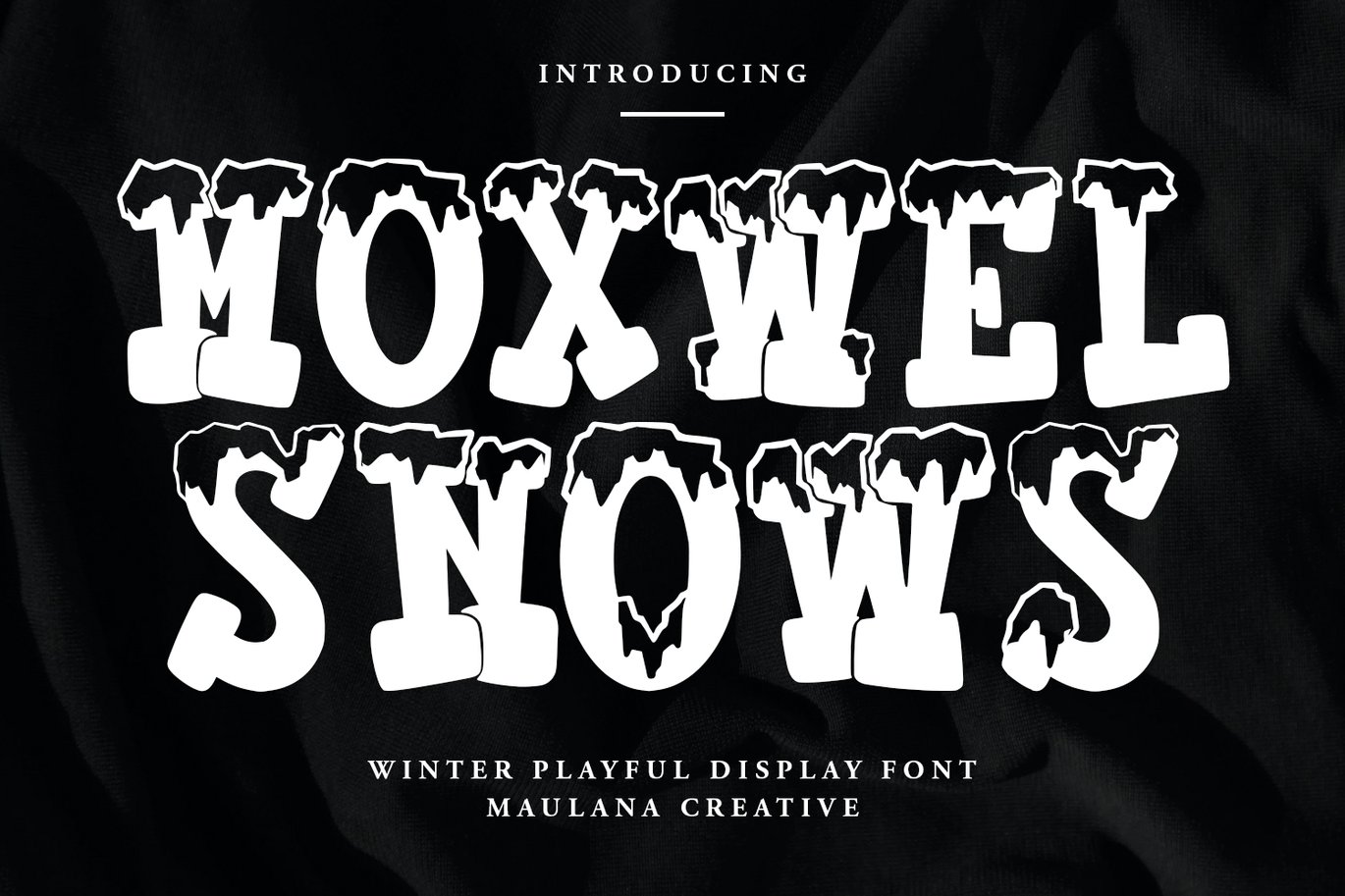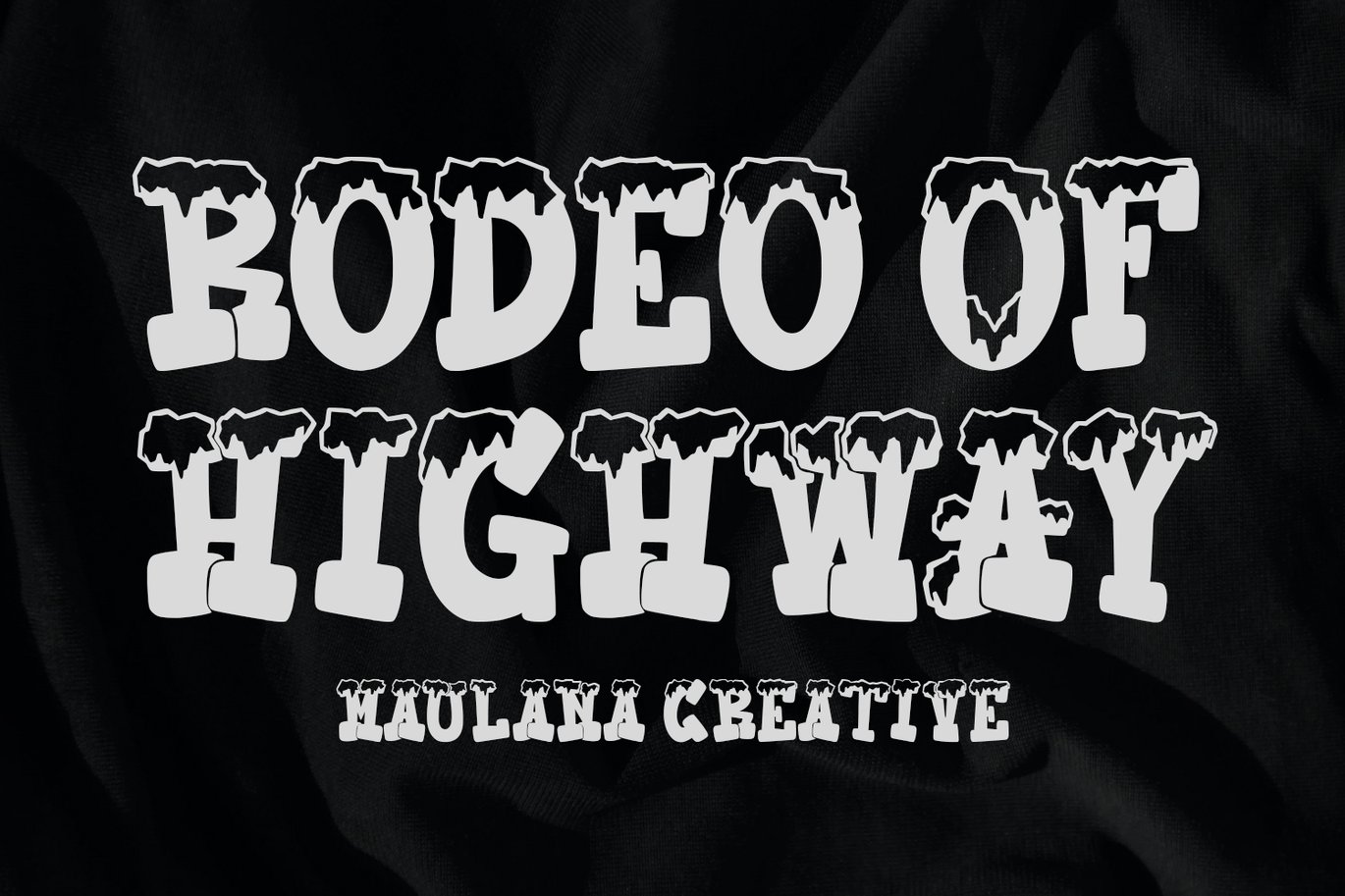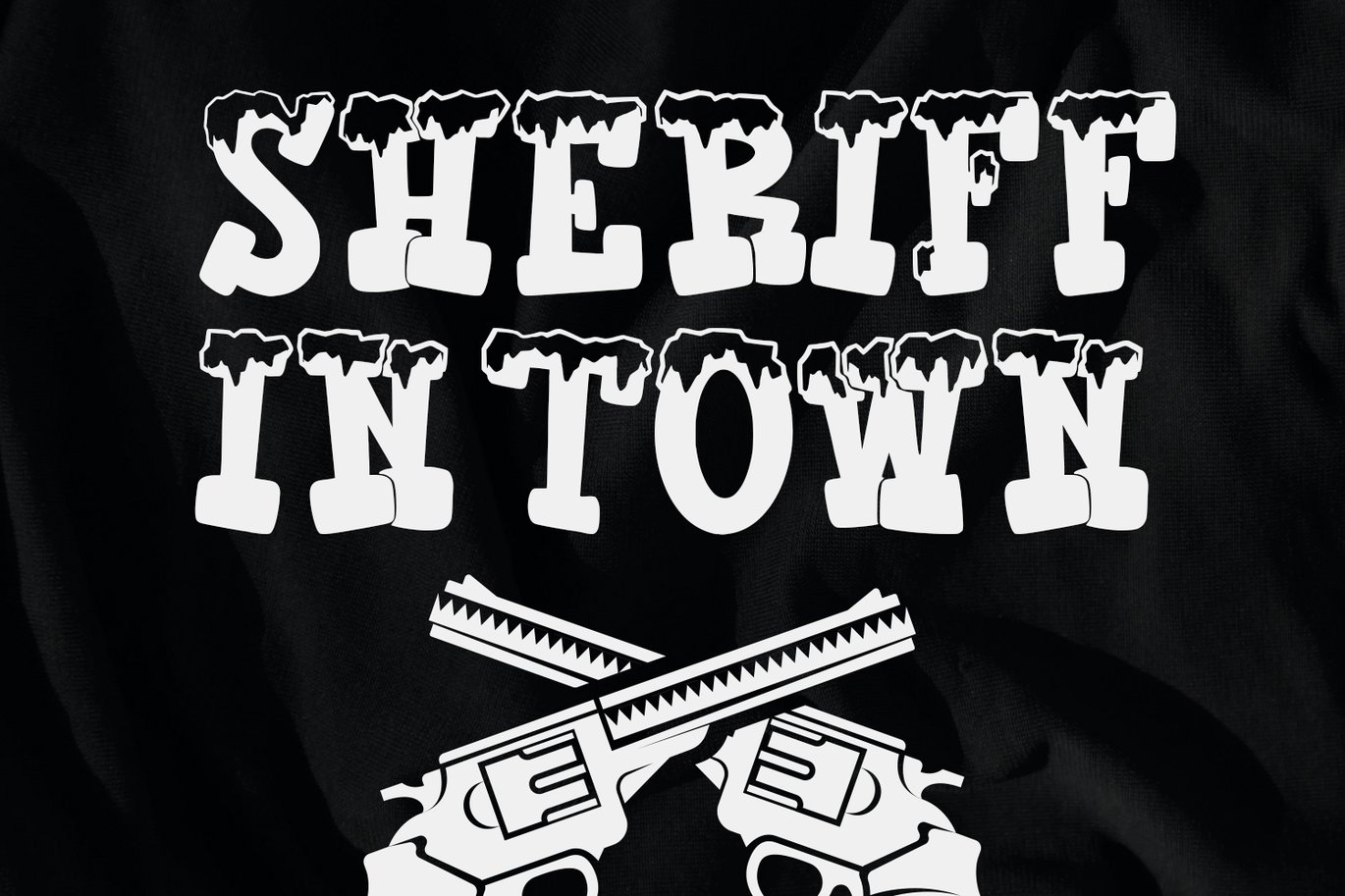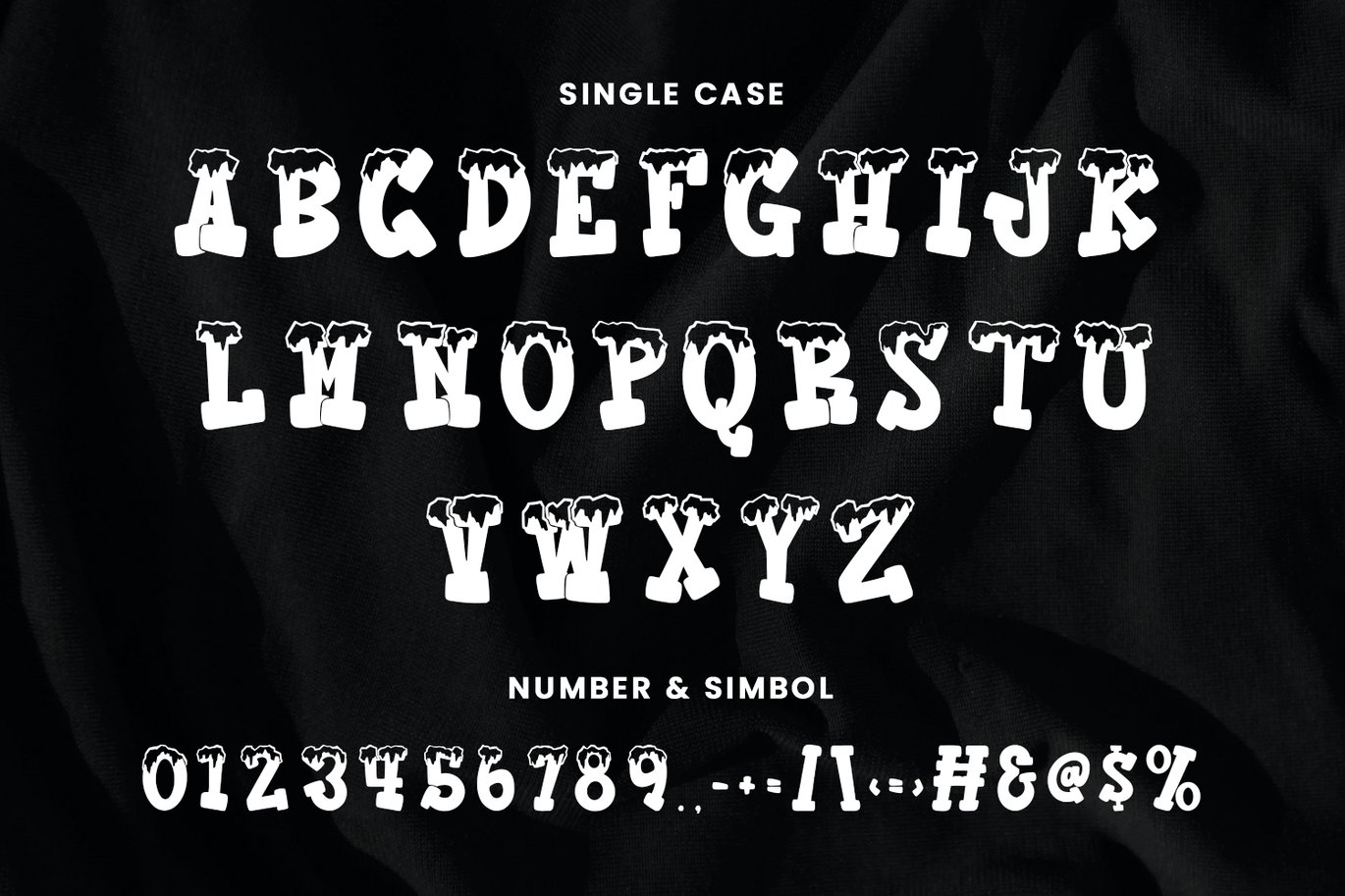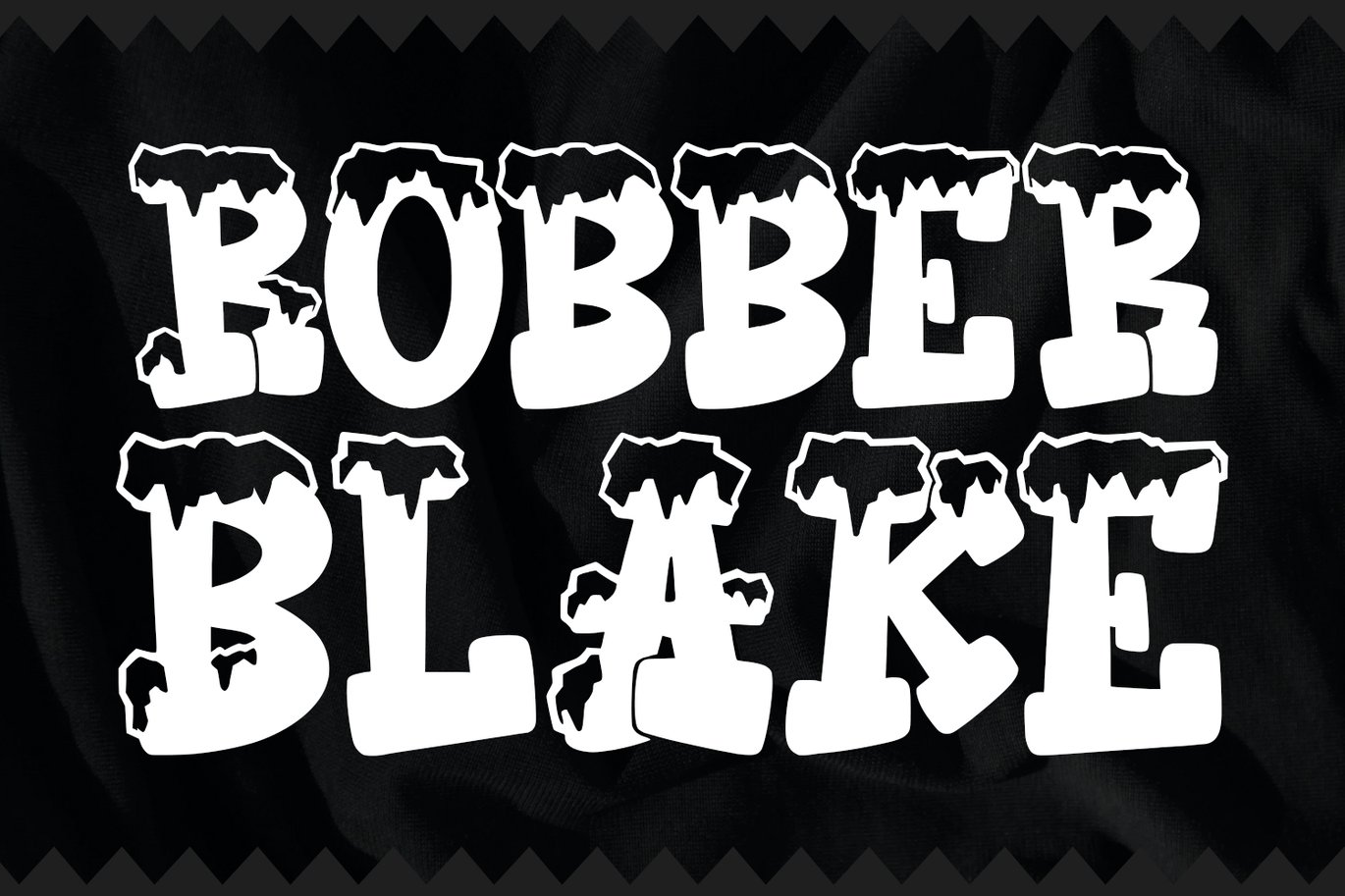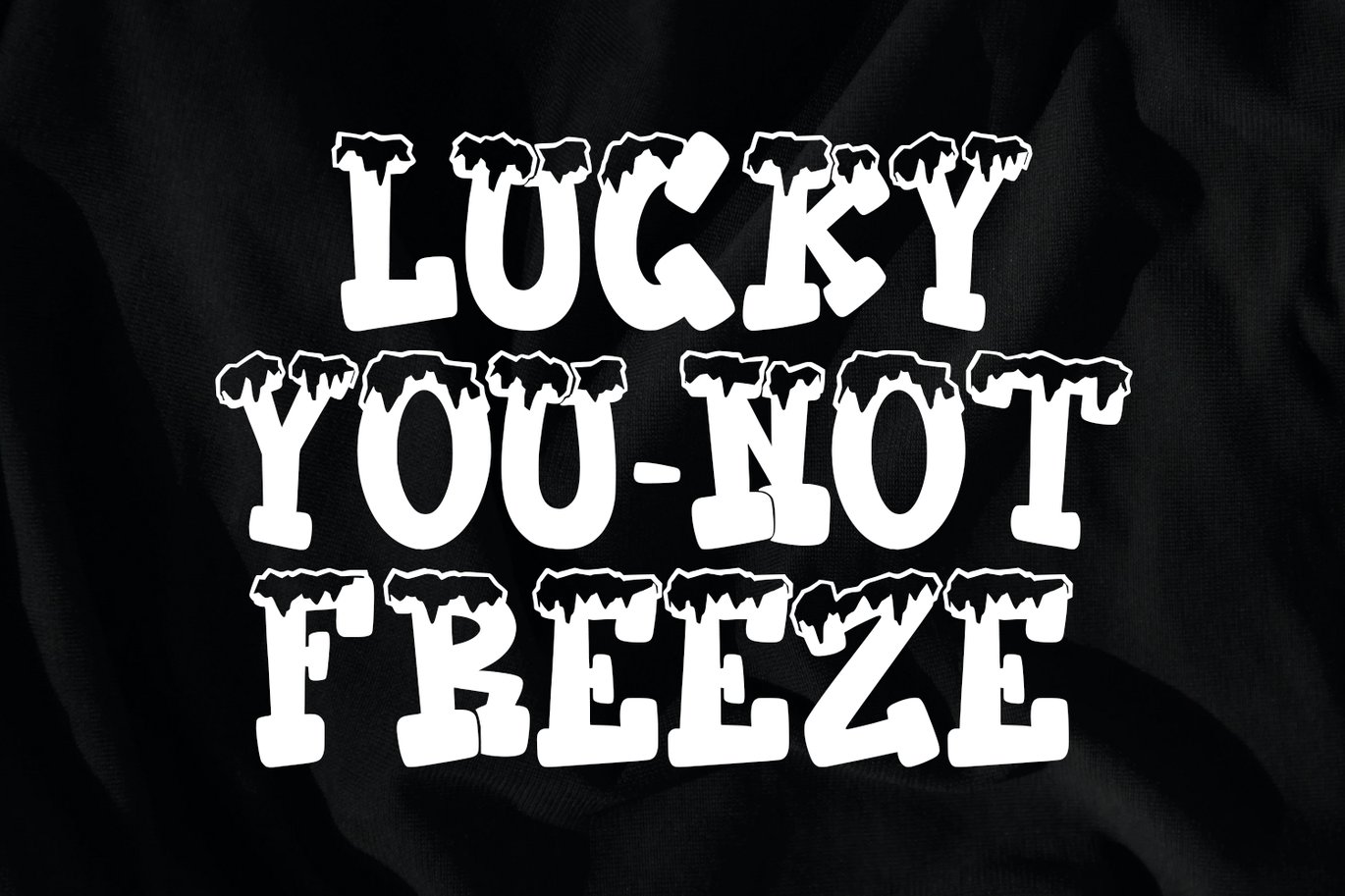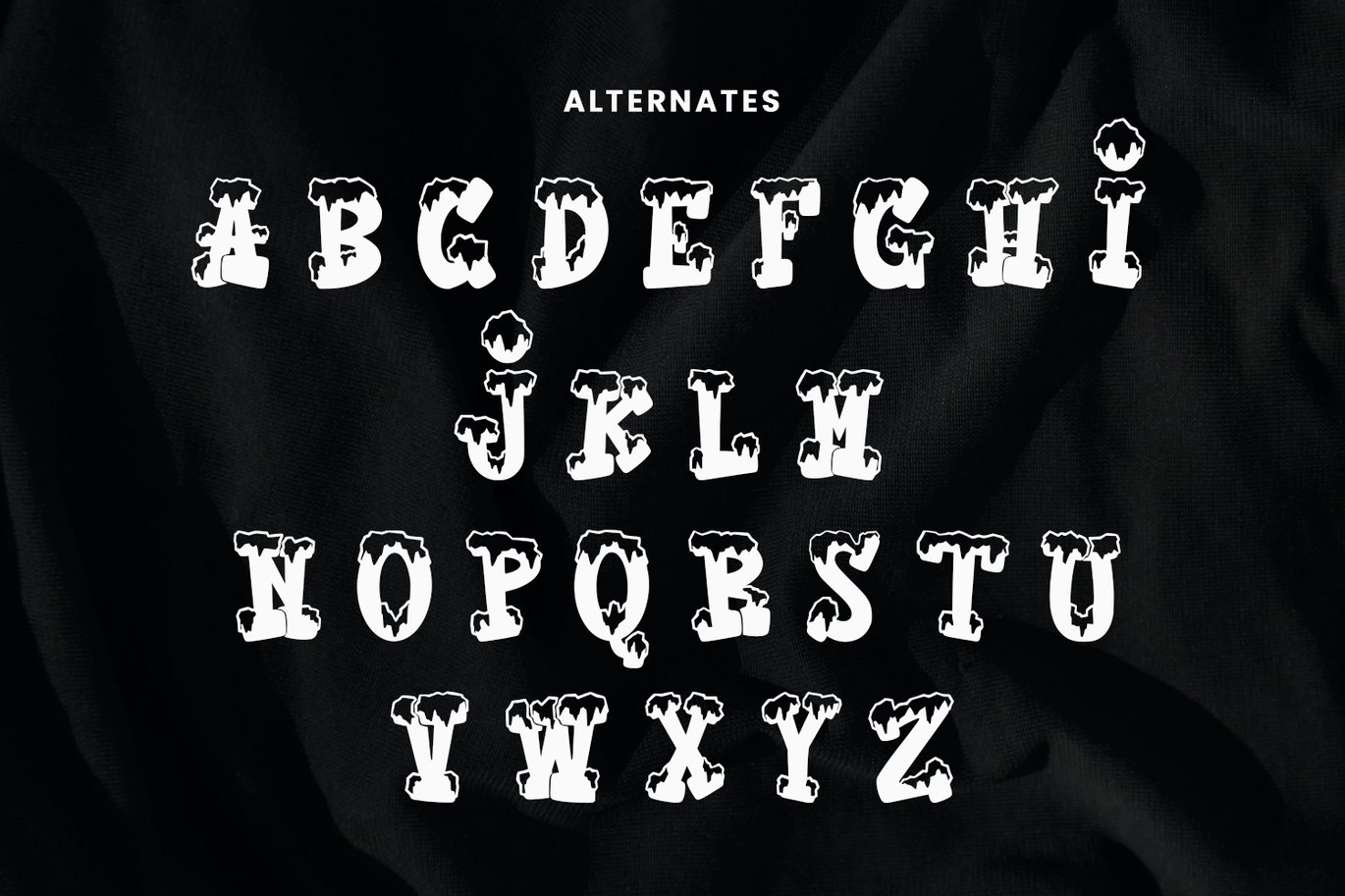
Moxwel Snows Winter Playful Display Font
Moxwel Snows winter playful display font. Bold stroke, fun character with a bit of ligatures and alternates. To give you an extra creative work. Moxwel Snows winter playful display font support multilingual more than 100+ language. This font is good for logo design, Social media, Movie Titles, Books Titles, a short text even a long text letter and good for your secondary text font with script or serif. Make a stunning work with Moxwel Snows winter playful display font.